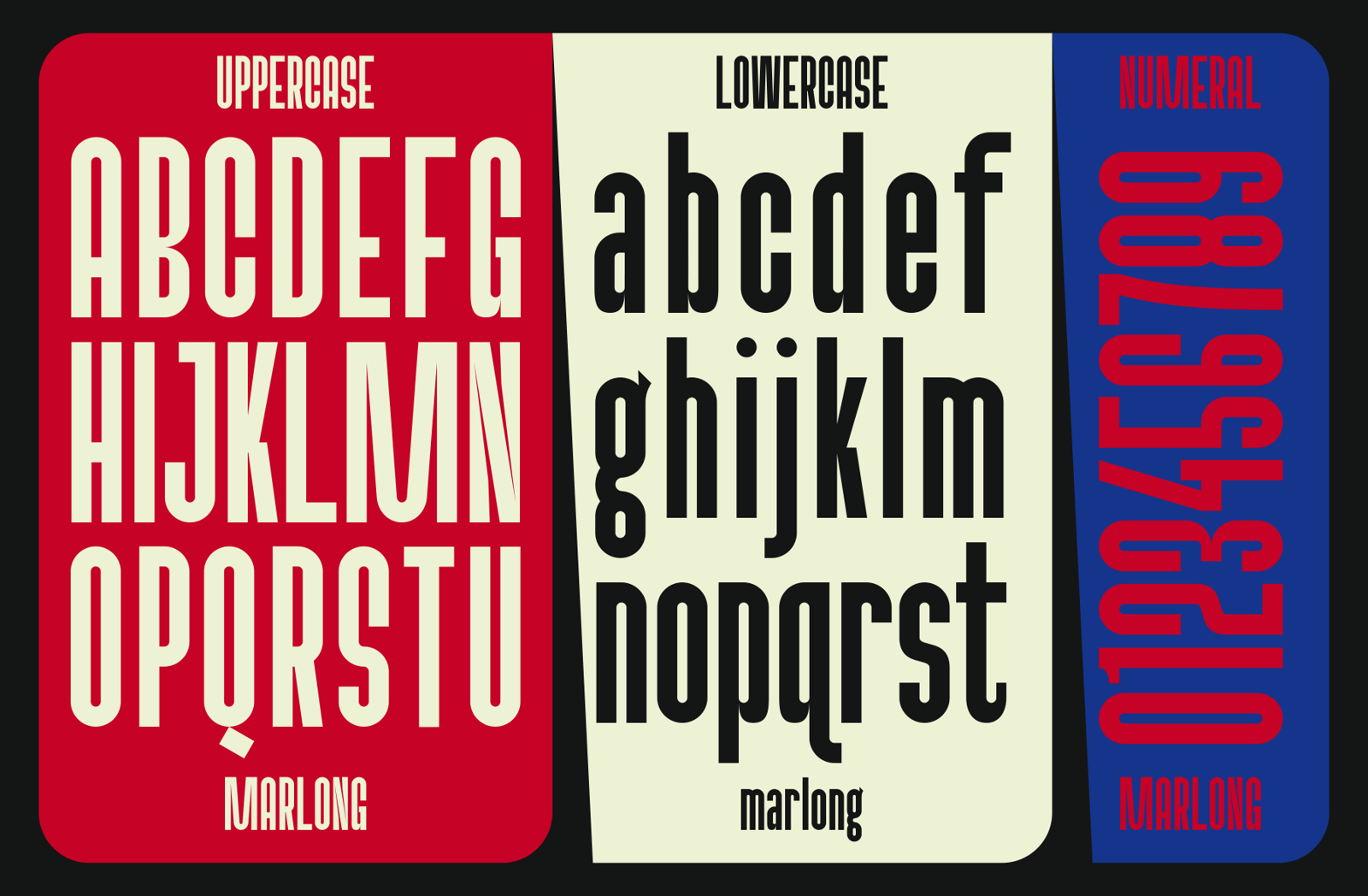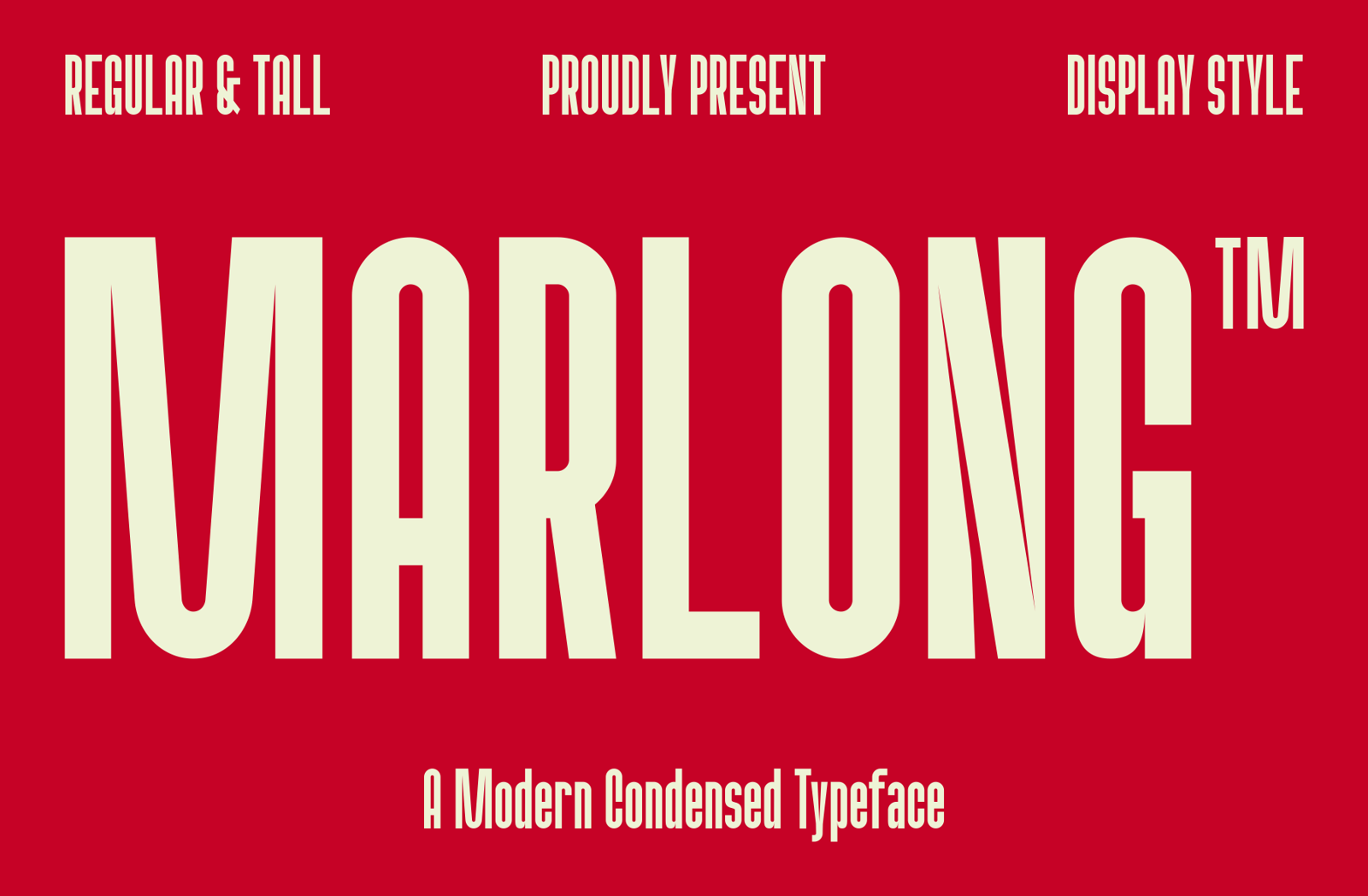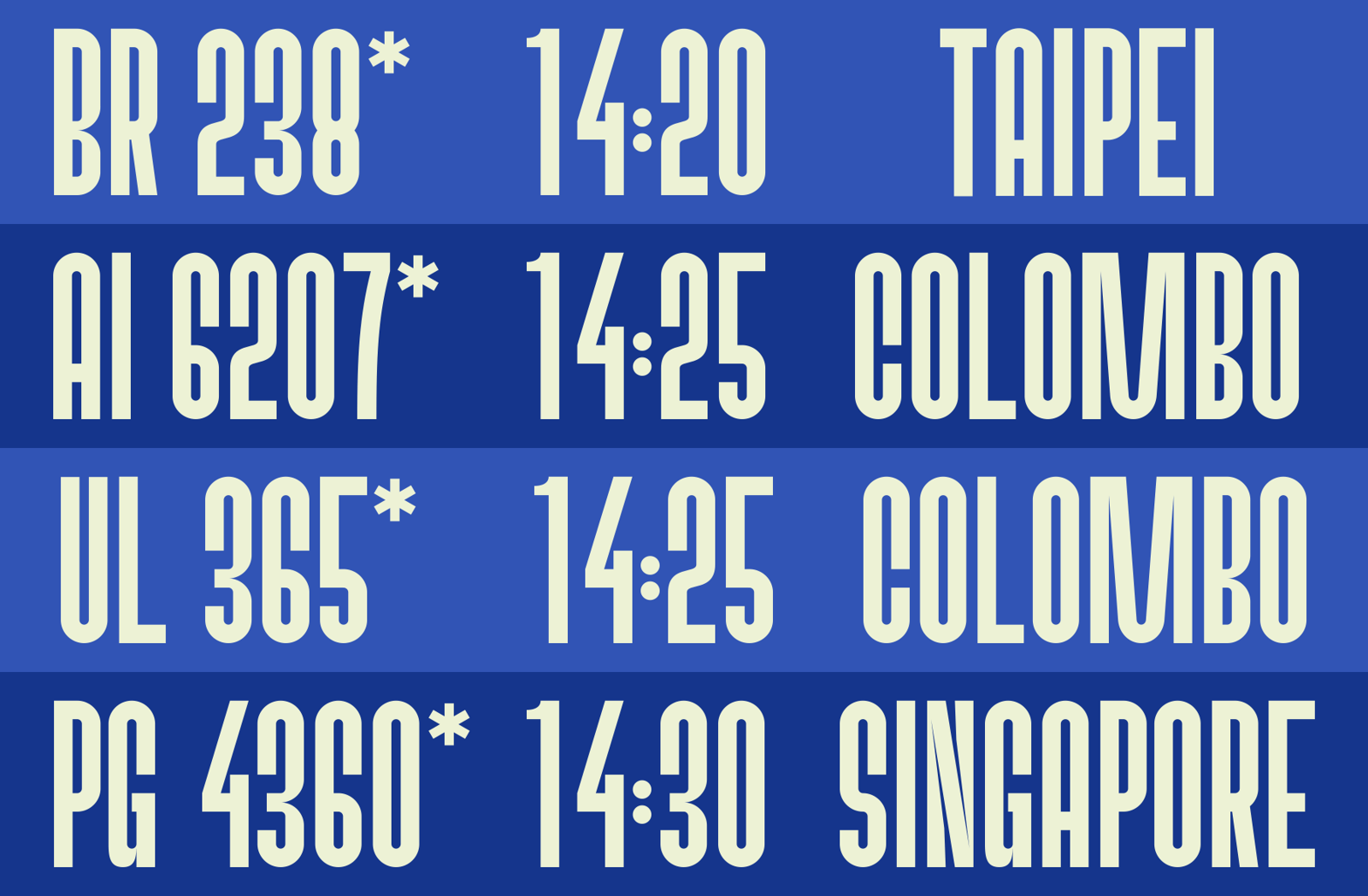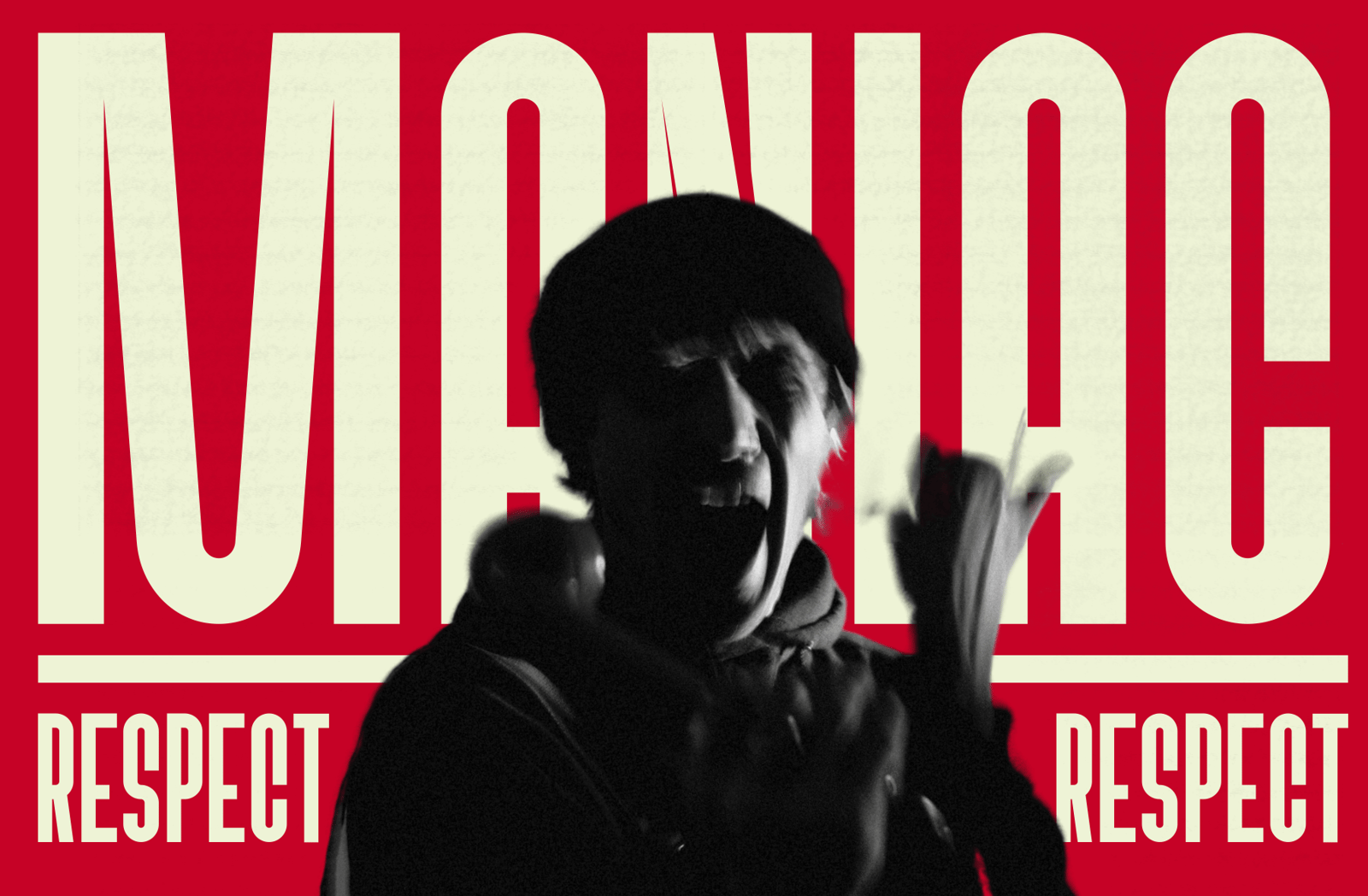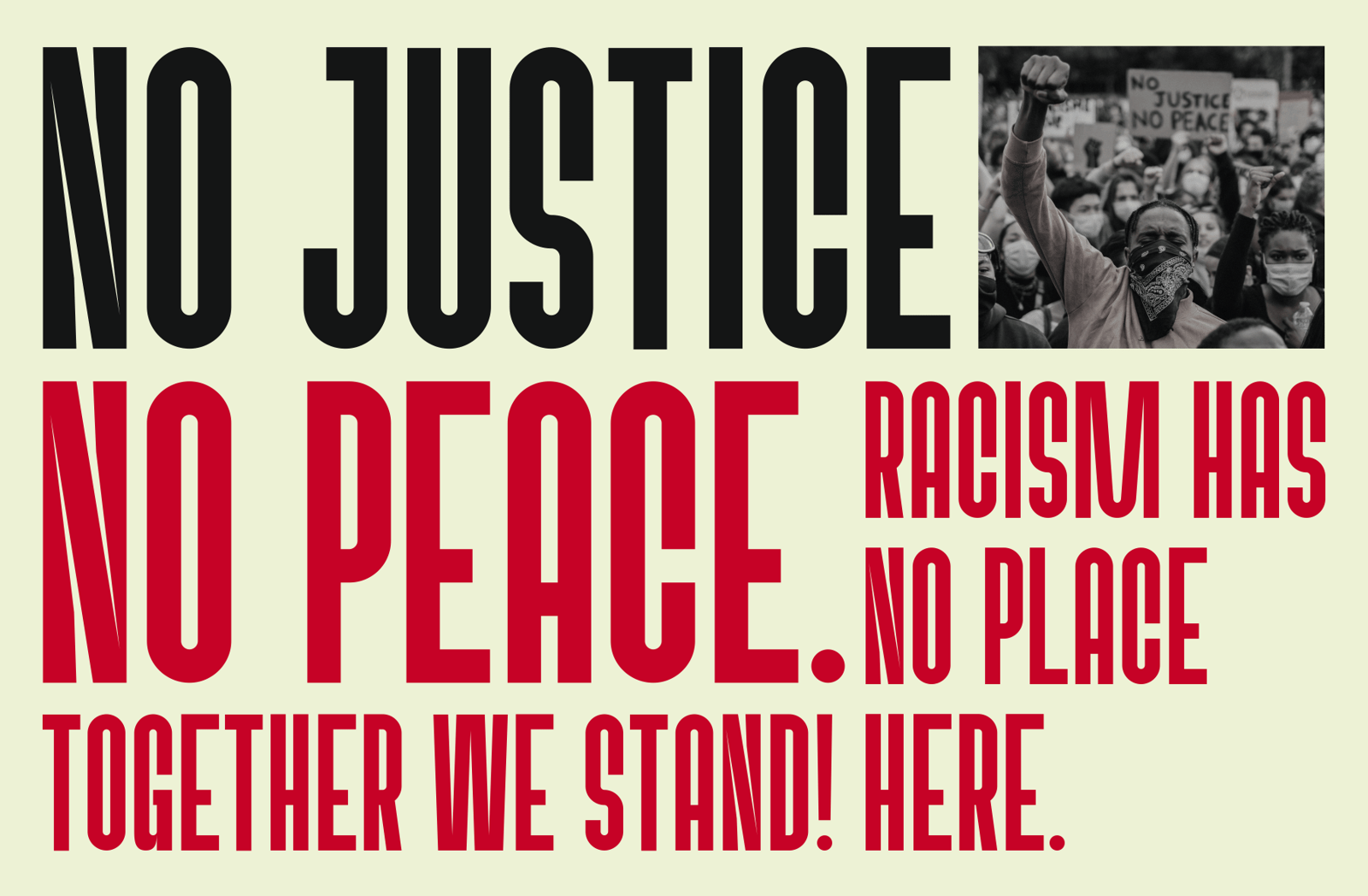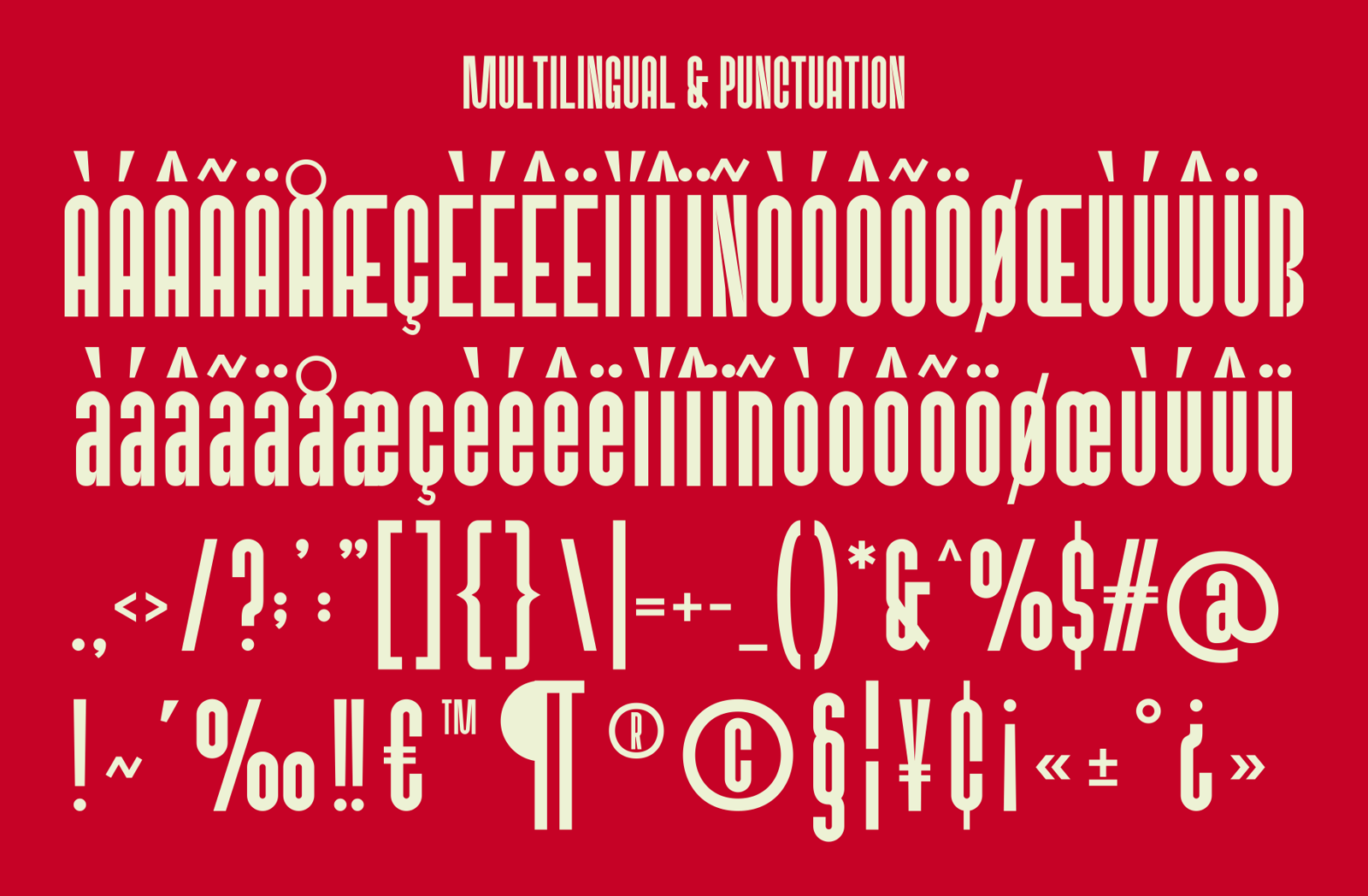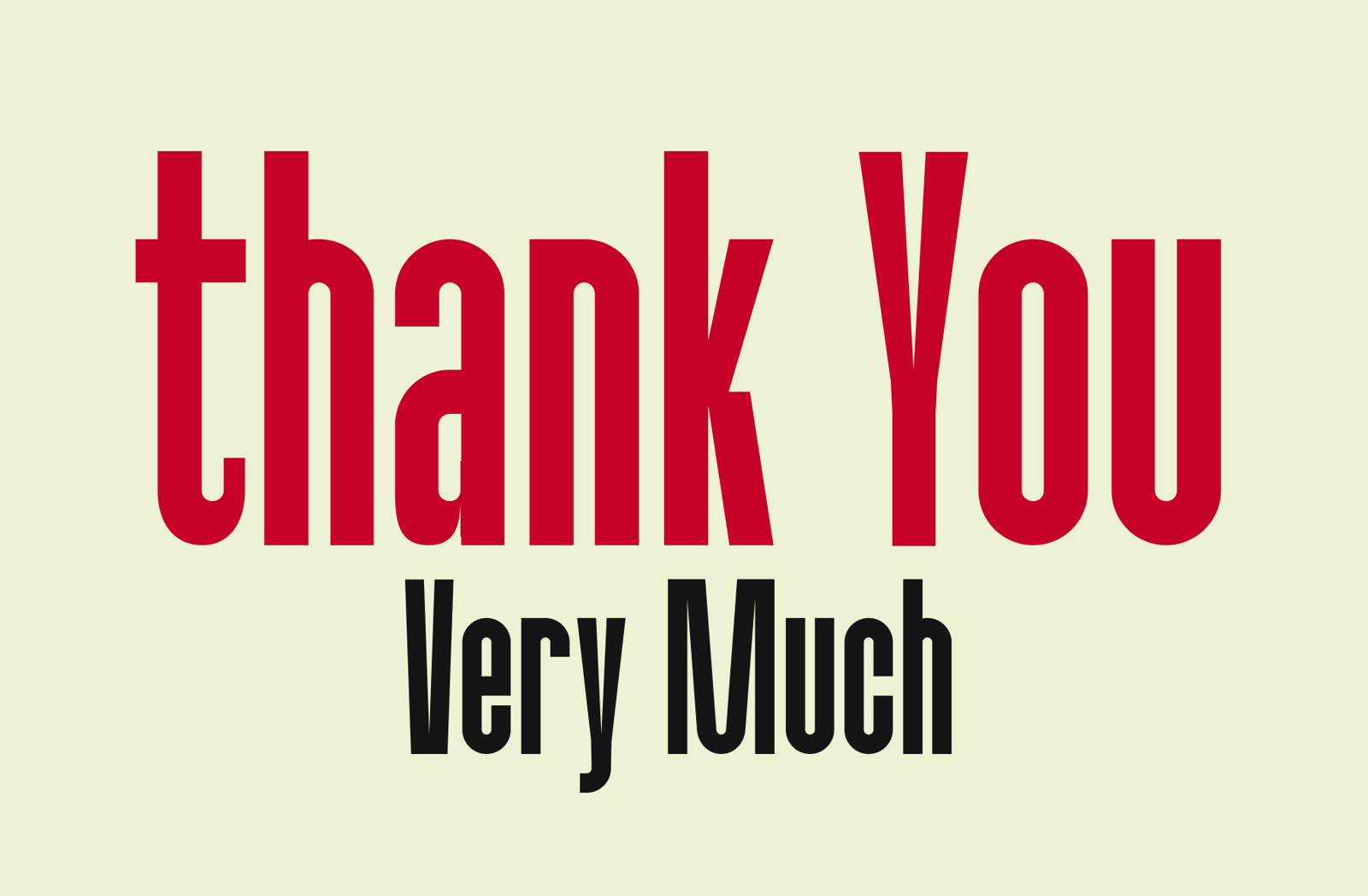
Marlong Font
The Marlong typeface is a modern, condensed font characterized by its bold and tall structure, designed to make a strong visual impact. This display-style typeface combines a sleek, clean design with an authoritative and expressive personality, making it suitable for various creative and formal applications.
The sharp, vertical alignment of the letters gives Marlong a confident and commanding appearance. It excels in headlines, branding, and protest messages, where readability and bold emphasis are essential. The combination of regular and tall styles provides flexibility in layout design, allowing designers to experiment with contrasting text weights.
Furthermore, Marlong effectively balances retro aesthetics and contemporary minimalism, making it versatile for social, political, and marketing campaigns. The font's ability to maintain clarity while conveying urgency and emotion makes it particularly effective for attention-grabbing posters and visual media.
Overall, Marlong is an impactful typeface with strong design versatility, embodying both sophistication and assertiveness, suitable for projects that demand powerful messaging.